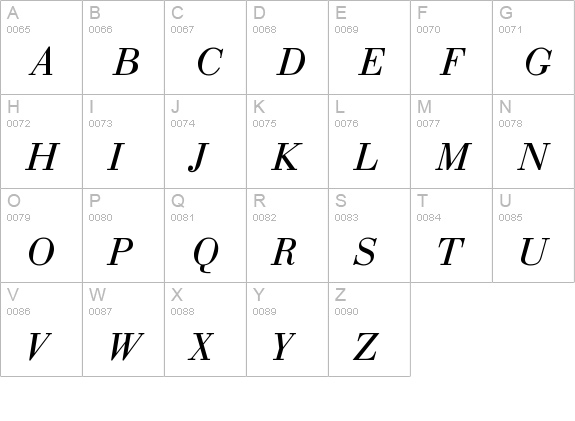
Bodoni-Normal-Italic Font Details
Bodoni-Normal-Italic is the standard, neutral, italic variant in the Bodoni typeface family \xE2\x80\x94 well suited to general body text, paragraphs, and standard typographic work.
Bodoni-Normal-Italic is a classic and elegant font style that exudes sophistication and timeless beauty. With its slanted letterforms and graceful curves, this font brings a touch of refinement to any design project. Perfect for conveying a sense of luxury and high-end aesthetics, Bodoni-Normal-Italic is a must-have for designers looking to make a bold statement. What's even better is that this exquisite font is available for free download at FontsMarket.com. Now you can easily elevate your designs with the allure of Bodoni-Normal-Italic without any cost. Don't miss out on this opportunity to add a touch of elegance to your projects with this stunning typeface. Download Bodoni-Normal-Italic today and let your creativity shine!